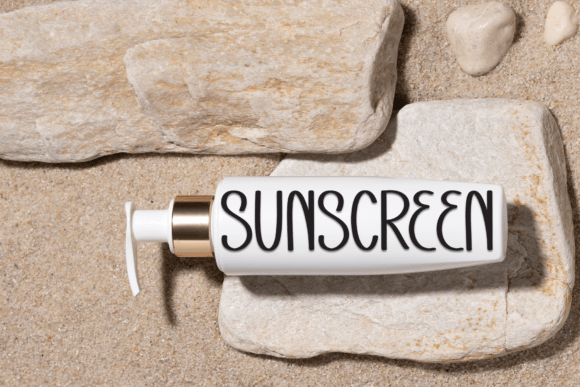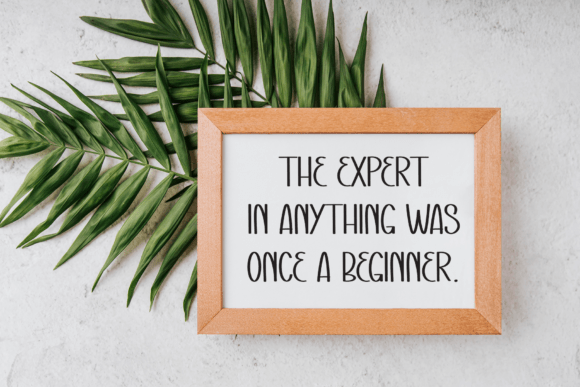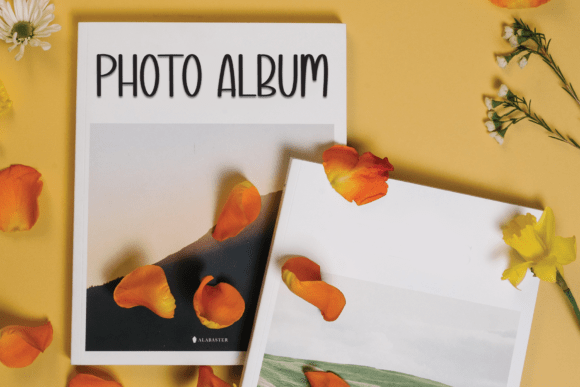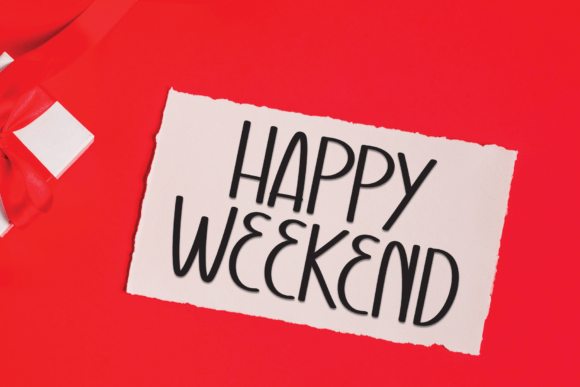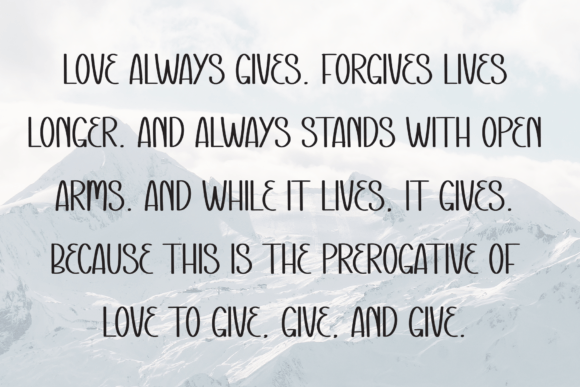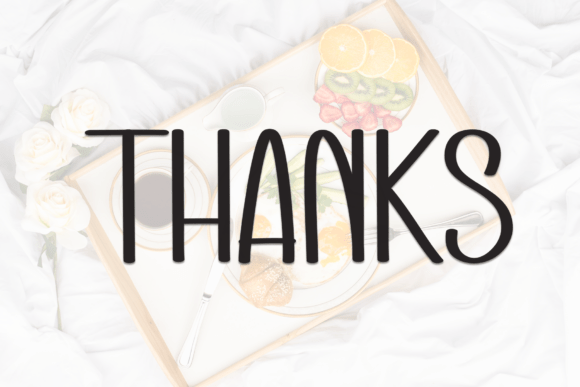
Introduction to Morning Breakfast Font
Have you ever stared at a blank canvas, waiting for inspiration to strike and bring your creative project to life? The silence is broken by a gentle whisper in your mind, “What if I add a dash of whimsy?” That’s when the Morning Breakfast Font comes to the rescue, infusing your designs with a touch of magic and making them truly unforgettable.
As a designer, you’re always on the lookout for that special something to elevate your work and leave a lasting impression. The Morning Breakfast Font is that something – a high-quality, free download that’s waiting to be unleashed on your next creative endeavor. With its transparent background and versatility, this design resource is perfect for crafting exquisite wedding invitations, alluring greeting cards, and other unique projects that demand a sprinkle of vivacious magnetism.
Key Features of Morning Breakfast Font
- High-quality design resource for creative projects, perfect for illustrations, graphics, and more
- Unique and playful font, ideal for adding a touch of whimsy to your design
- Designed with a modern and trendy aesthetic, perfect for adding a touch of sophistication to your design
Honest Review: Morning Breakfast Font
I recently had the chance to play around with the Morning Breakfast Font, and I have to say, I was quite impressed. As a designer, I’m always on the lookout for high-quality design resources that can elevate my creative projects. The Morning Breakfast Font delivers on that front.
What works well: ✨ The font is incredibly versatile and can be used for a wide range of applications, from headings to body text. The design is clean and modern, making it perfect for digital projects. The font also comes with a transparent background, which is a huge plus for designers who need to work with complex backgrounds.
- High-quality design: The font is expertly crafted and shows a clear attention to detail.
Limitations: ⚠️ The font is a bit limited in terms of character sets, which may be a problem for designers who need to use it for international projects.
Overall, I was really impressed with the Morning Breakfast Font. It’s a high-quality design resource that can add a lot of value to your creative projects. If you’re looking for a versatile and modern font, I’d definitely recommend checking it out.
The Morning Breakfast Font is suitable for a wide range of creative projects, including food blogs, restaurant menus, and lifestyle magazines. Its unique style makes it an ideal choice for designers seeking a distinctive look.